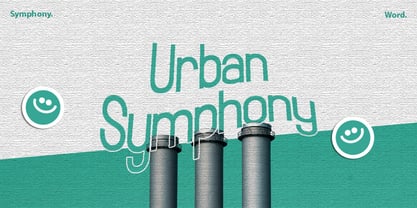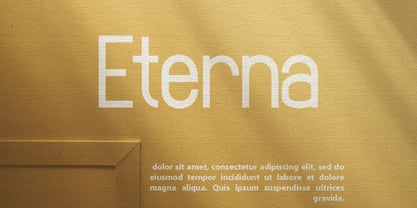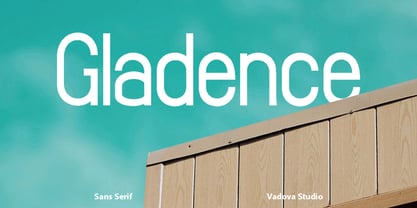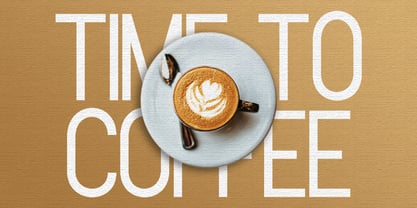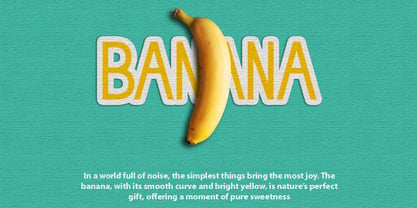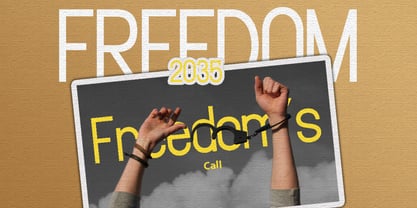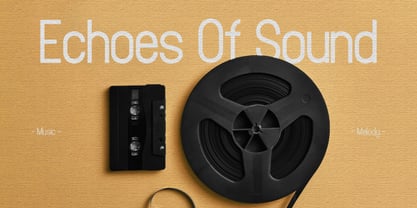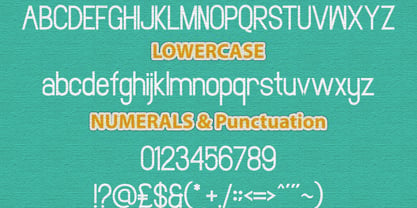
Gladence
by Vadova Std
The Gladence Font Family and published by Vadova Std. Gladence contains 1 styles. More about this family
Gladence is a tall and condensed sans serif font with a sleek, minimalist structure ideal for professional design. Perfect for clean headlines, branding, posters, and modern editorial layouts, this typeface offers a smooth blend of elegance and clarity. With uppercase, lowercase, numerals, and punctuation, Gladence works flawlessly in tight layouts or as a striking display font. Suitable for editorial headline, minimalist branding, logo font, professional layout, clean typography, tall font, condensed text, modern sans serif, fashion magazine, startup identity, elegant web design, UI headings, premium brand, slim poster, product packaging,